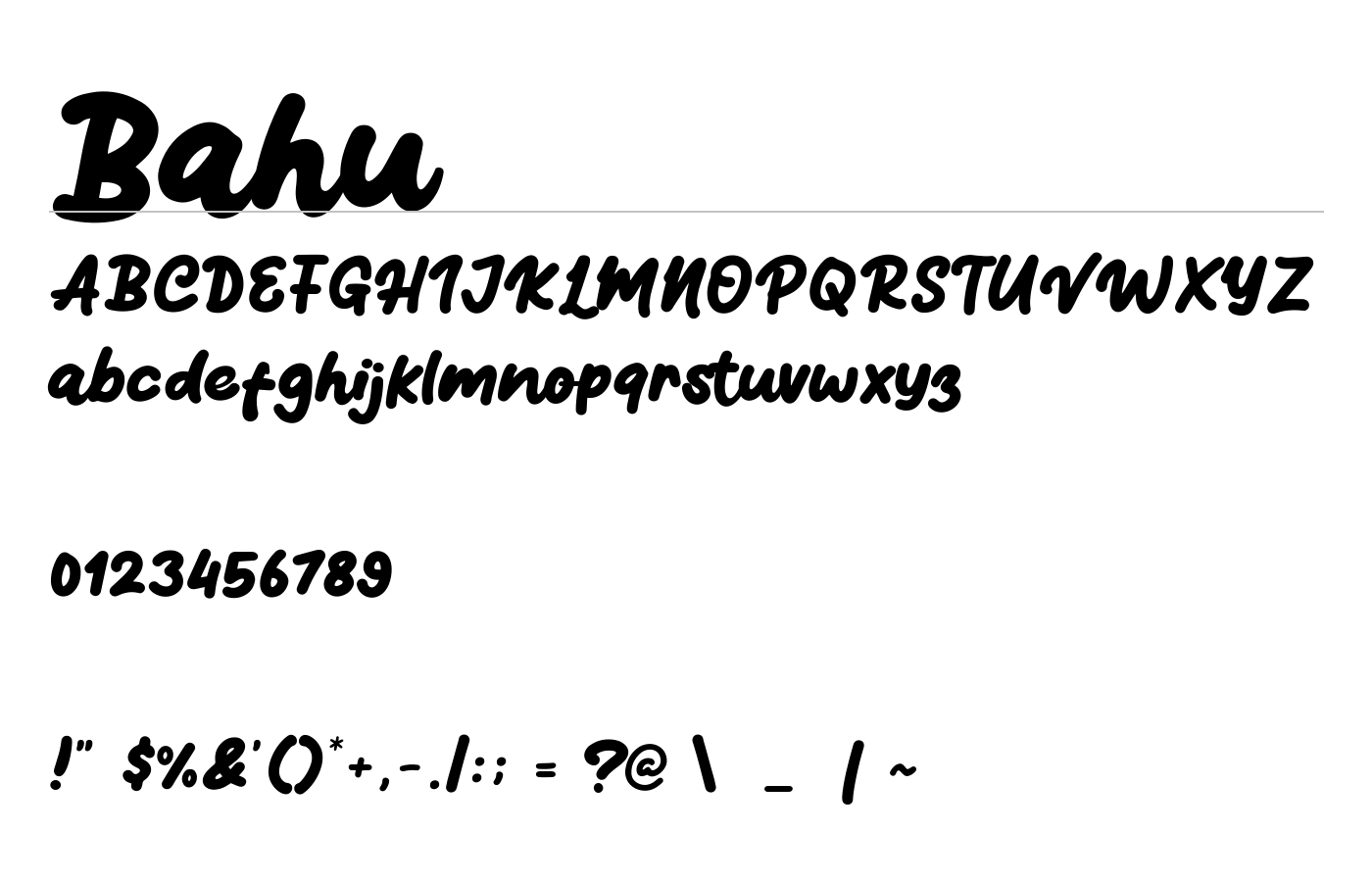
Bahu Font is a bold, playful script typeface with a friendly and informal feel, featuring smooth, rounded strokes and a consistent medium weight. Its lively letterforms and connected style make it ideal for inviting headlines, logos, and creative projects that seek a warm, approachable personality. This font works well in branding and packaging where a casual yet confident tone is desired.
Bahu Font
About Bahu Font